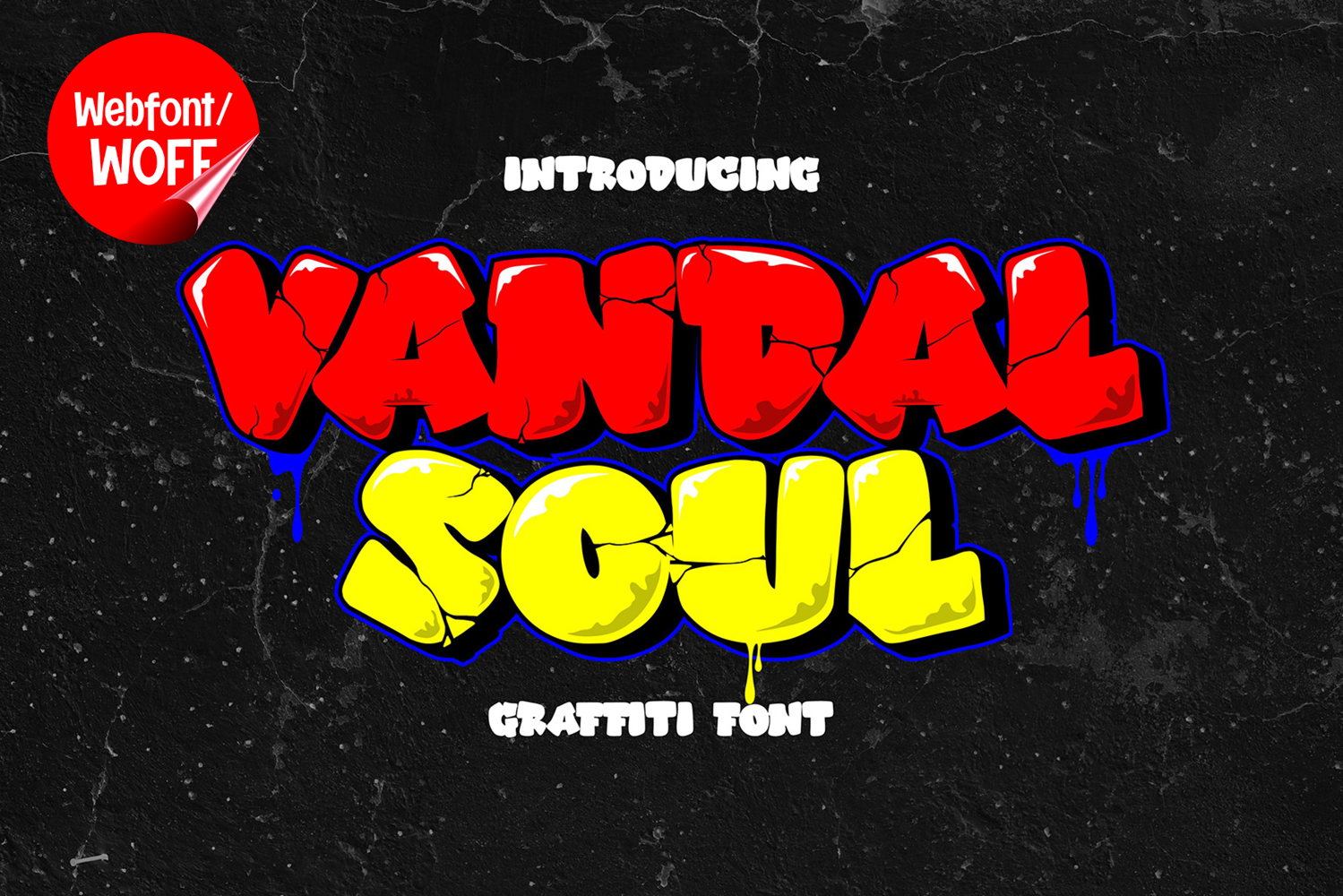
Vandal Soul | Break Alphabet Graffiti Webfont for Urban Idea
Vandal Soul is a break alphabet graffiti webfont designed to bring raw street energy and experimental urban typography into modern website design. Inspired by broken graffiti lettering, freestyle wall art, and underground street culture, this font features fragmented shapes and dynamic structures that create a bold and rebellious visual identity. It is an excellent choice for projects that aim to deliver edgy graffiti aesthetics with strong artistic impact.
Vandal Soul includes a complete set of uppercase characters designed with break alphabet graffiti style. The letterforms feature distorted cuts, fragmented details, and energetic movement that create an expressive and unconventional appearance. These characteristics make it ideal for headlines, banners, hero sections, promotional graphics, and featured content where strong urban visuals are essential.
In addition to letters, the font includes numbers and punctuation, allowing flexible usage across various parts of a website. It works well for streetwear branding, music platforms, gaming websites, skate culture projects, and creative portfolios. Each character maintains a consistent break-style graffiti aesthetic, ensuring a cohesive and unified visual identity throughout the design.
With multilingual support, Vandal Soul includes a wide range of accented characters, making it suitable for international websites and global audiences. This ensures content remains clear and visually consistent across different languages while preserving the bold and chaotic graffiti aesthetic.
The break alphabet graffiti style of Vandal Soul makes it especially suitable for urban-themed websites, hip hop branding, esports graphics, entertainment campaigns, and youth-focused digital projects. Its fragmented and rebellious appearance creates a powerful street-art atmosphere that helps websites stand out in visually competitive environments. The broken letter structures add intensity, movement, and a modern underground feel.
Despite its expressive and highly stylized appearance, Vandal Soul is designed with readability in mind. The spacing and proportions are carefully balanced to ensure clarity, particularly in display sizes. This allows designers to use the font effectively for impactful headings and short content without sacrificing usability.
Vandal Soul is a webfont that combines break-style graffiti aesthetics with modern digital performance. Its fragmented forms, energetic structure, and urban character create a distinctive typographic presence that enhances website design. For projects that require a bold, rebellious, and visually engaging graffiti font, Vandal Soul offers a strong and versatile solution.